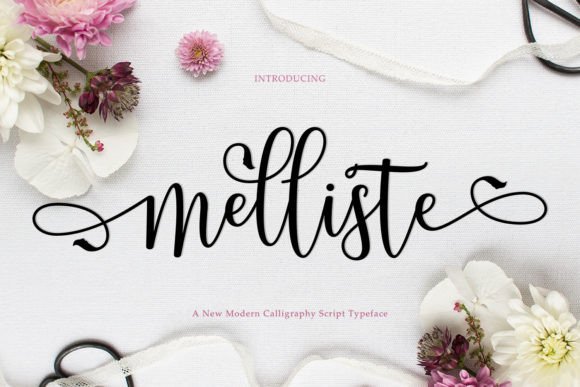
Welcome to the world of Melliste Font, the most enchanting script font that will transform your designs into masterpieces. Immerse yourself in its artistic beauty, a fusion of playfulness and elegance. Melliste is the embodiment of creativity, a font that breathes life into your ideas.
Journey into a realm of fairy tales with Melliste's captivating characters. Each letter dances with charm, whispering stories of enchanted forests and whimsical adventures. Let your imagination soar as you craft designs that evoke a sense of wonder and magic.
Express your individuality with Melliste's diverse selection of glyphs and ligatures. Unlock endless possibilities as you mix and match elements, creating unique typographic compositions that reflect your personal style. The possibilities are limitless!
Elevate your designs with Melliste's exceptional PUA encoding. Access all the font's abundant features with effortless ease, crafting designs that captivate and inspire. Let Melliste's intricate details and stunning ligatures elevate your work to new heights of artistry.
Melliste Font, the font for those who dare to embrace the extraordinary. Its versatility knows no bounds, lending itself seamlessly to logos, branding, posters, invitations, social media, and beyond. Unlock the door to a world of creative expression and let Melliste ignite your imagination.
Join the ranks of those who have been captivated by Melliste's allure. Experience the beauty and the beast within this font. Let Melliste be your muse, your faithful companion in the realm of design. Dare to dream, dare to create, and let Melliste guide you to typographic excellence.